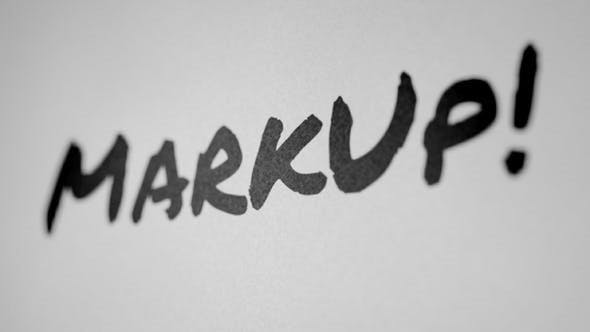
Take your video editing skills to new heights with MarkUp – Animated Typeface, a free and versatile tool from GFXInspire (Product Code: 46684831). Dive into a world of creative possibilities without breaking the bank. This comprehensive guide will explore the features of Videohive 46684831 and provide expert insights to elevate your video editing projects.
Unveiling GFXInspire MarkUp – Animated Typeface​
Elevate Your Text with Animation​
Discover MarkUp, an Animated Typeface designed to enhance various occasions, including Title Designs, Intros, Greeting Cards, Lower Thirds, or any on-screen text. Unlike other Animated Typefaces, MarkUp simplifies the process. You don't need to drag each letter individually; simply write your text in a textbox and let the included script, "EasyType," import all the necessary compositions with a click of a button.
White Paper Style Preset Included​
The White Paper Style Preset showcased in the preview is included, providing you with a ready-made aesthetic for your projects.
How to Utilize MarkUp – Animated Typeface​
Effortless Integration for Stunning Results​
2. Write Your Text​
Utilize the textbox to write your desired text. MarkUp's innovative design allows you to bypass the manual dragging of each letter, streamlining the process.
3. Use EasyType Script​
Click the button to let the "EasyType" script automatically import all necessary compositions. Refer to the included videotutorial for a step-by-step guide on working with the template and script.
Expert Insights and Recommendations​
Unlock the Full Potential of MarkUp – Animated Typeface​
Now that you've discovered MarkUp, explore expert recommendations on how to maximize its impact on your video editing projects. Unlock new dimensions in your creative endeavors with this innovative Animated Typeface.